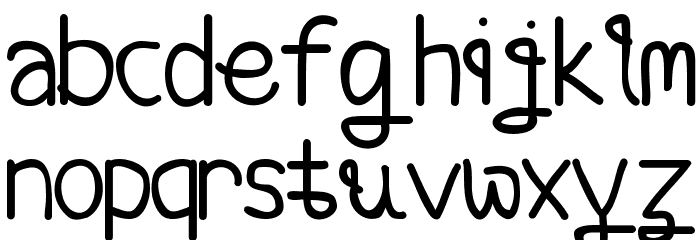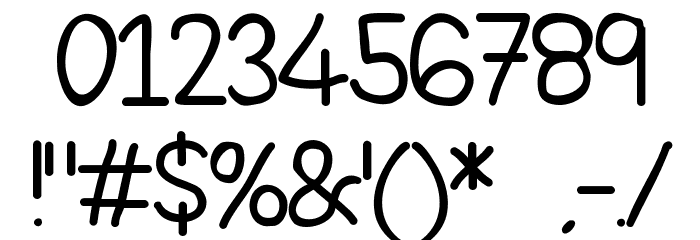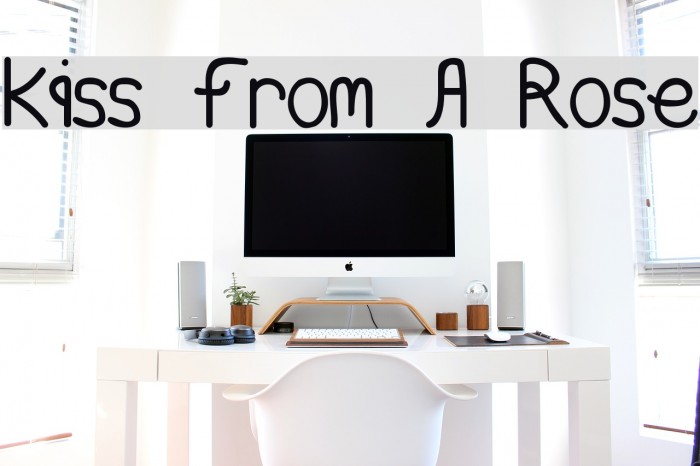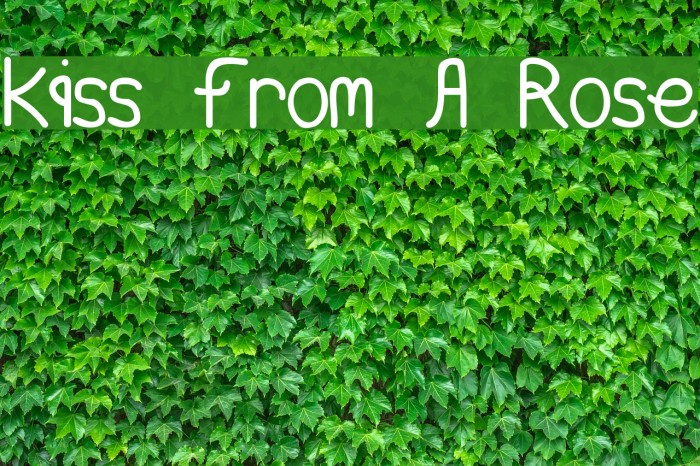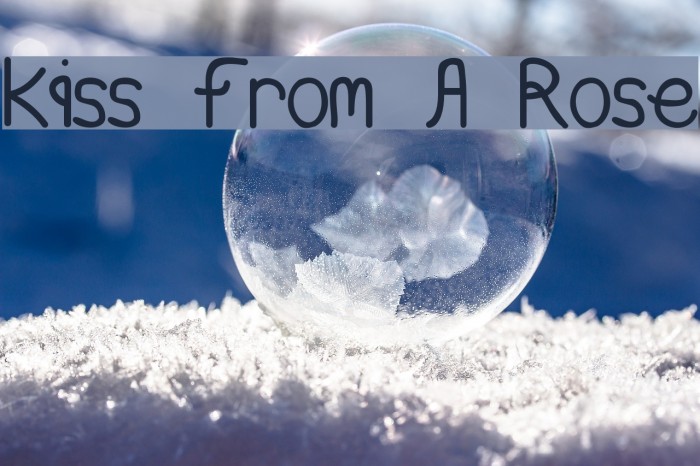
Kiss From A Rose Font
This playful and whimsical font features a handwritten style with a casual and friendly appearance. The characters are rounded and slightly irregular, giving them a unique charm. The uppercase letters are bold and prominent, while the lowercase letters maintain a consistent flow, enhancing readability. Numbers and special characters are designed to match the overall style, ensuring a cohesive look. The font's informal nature makes it suitable for creative projects that require a personal touch.
- Proposed Projects: Ideal for greeting cards, children's books, playful branding, and social media graphics.
- Overall Style: Casual, Playful
- Use Case: Headlines, Informal text, Creative projects